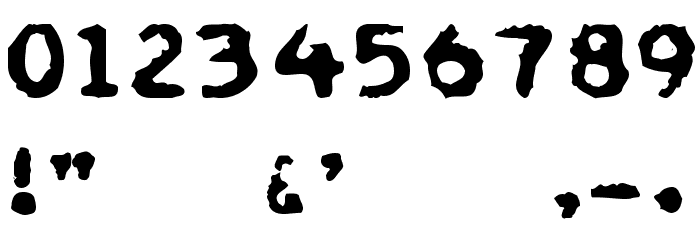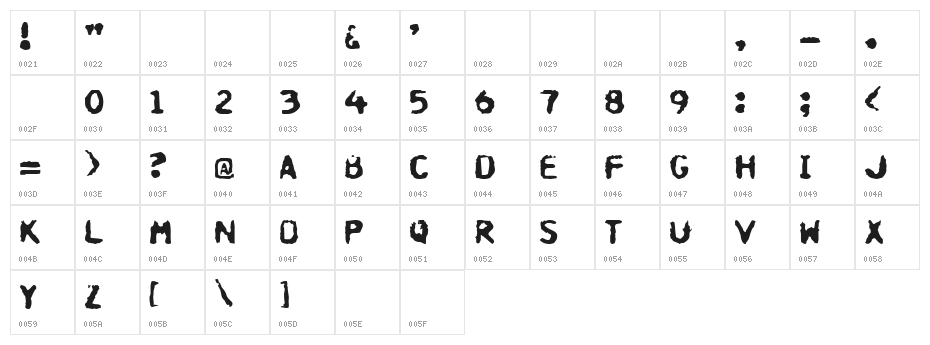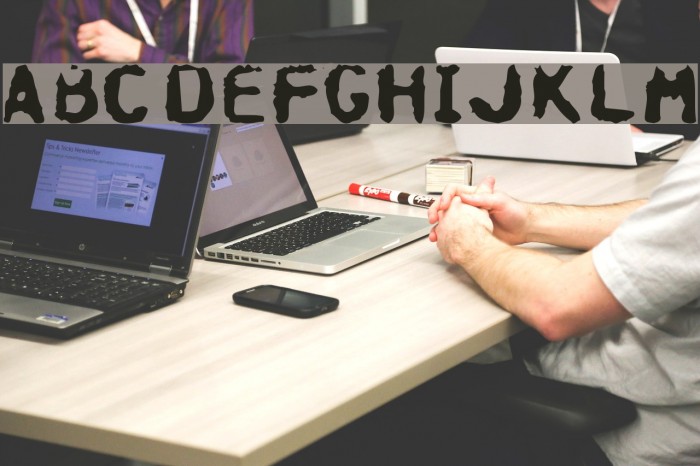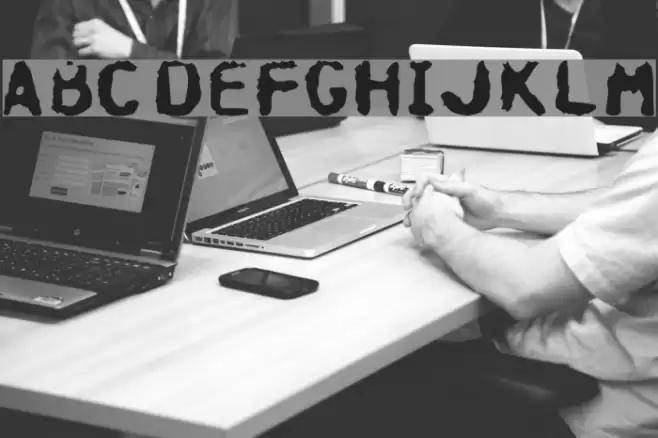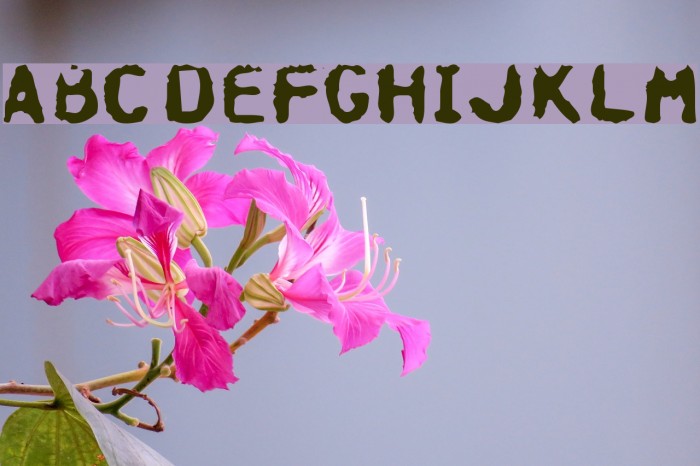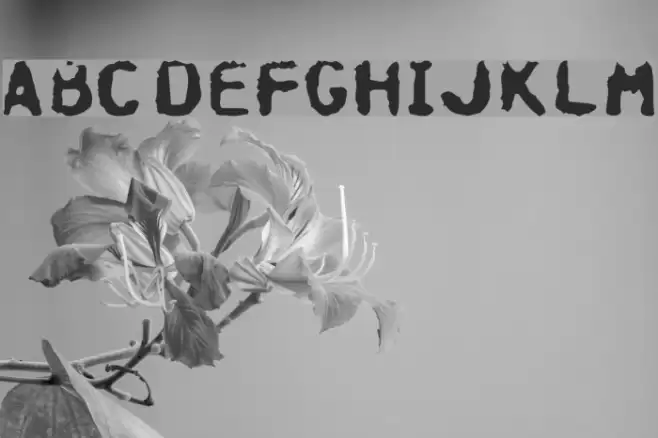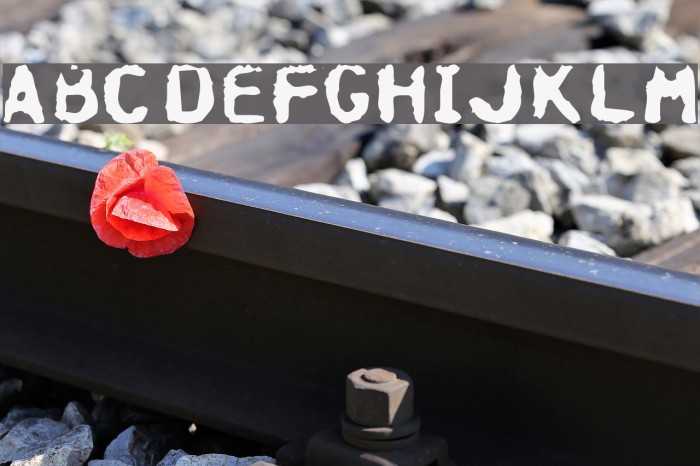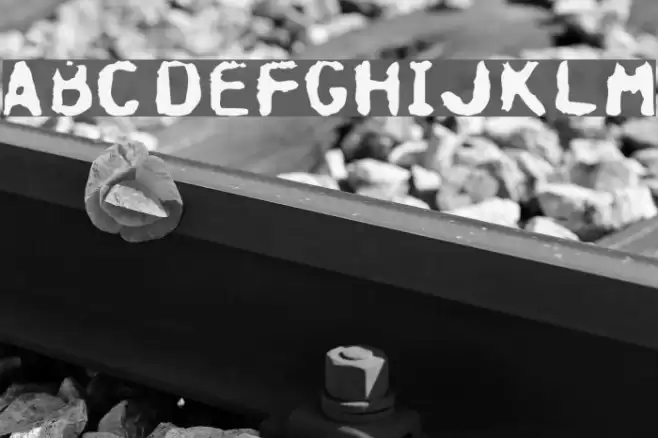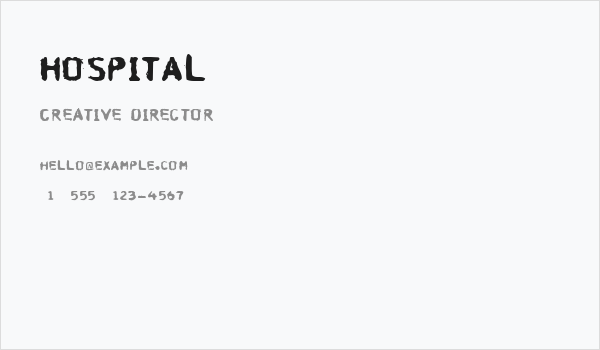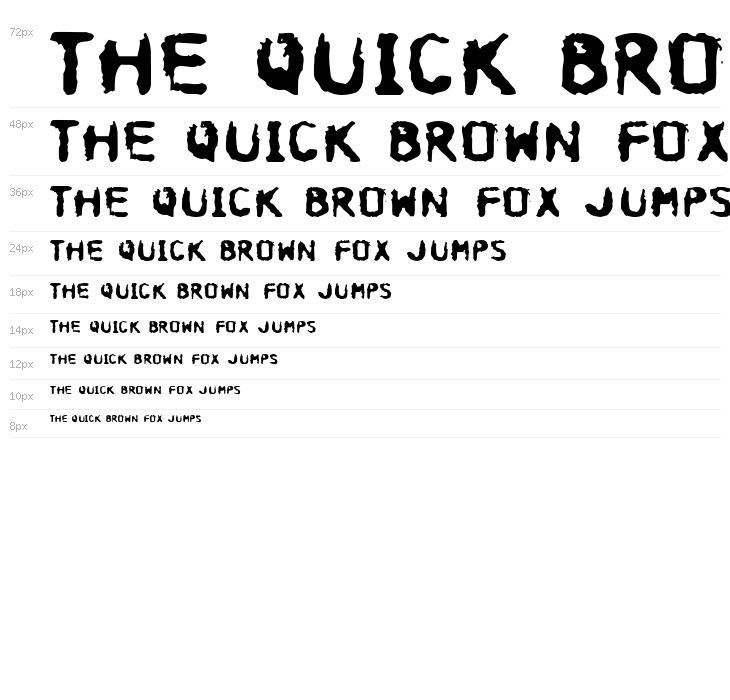
Hospital Font
Hospital Description
This font features a bold and rugged style with a hand-drawn appearance. The characters are irregular and have a distressed look, giving them a unique and artistic flair. The uppercase and lowercase letters maintain a consistent style, with thick strokes and uneven edges that suggest a vintage or grunge aesthetic. The numbers and special characters follow the same design principles, ensuring a cohesive look across all elements. This font is ideal for projects that require a bold statement or an edgy, creative touch.
| Overall Style | Vintage, Grunge |
| Proposed Projects | Ideal for posters, album covers, branding for edgy or artistic products, and any design needing a bold, creative statement. |